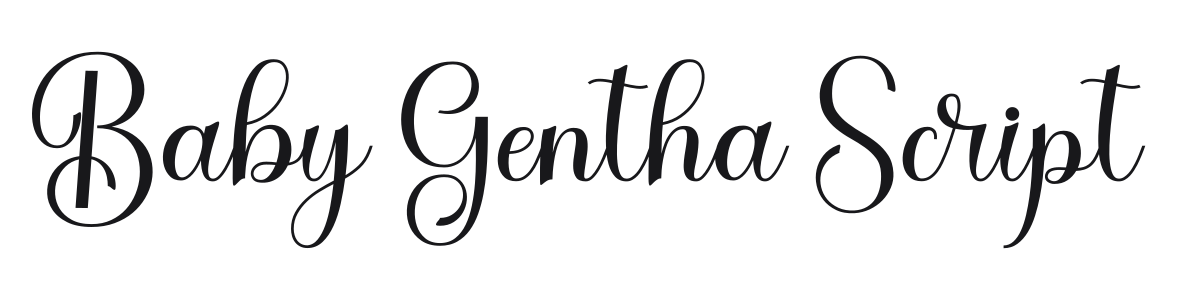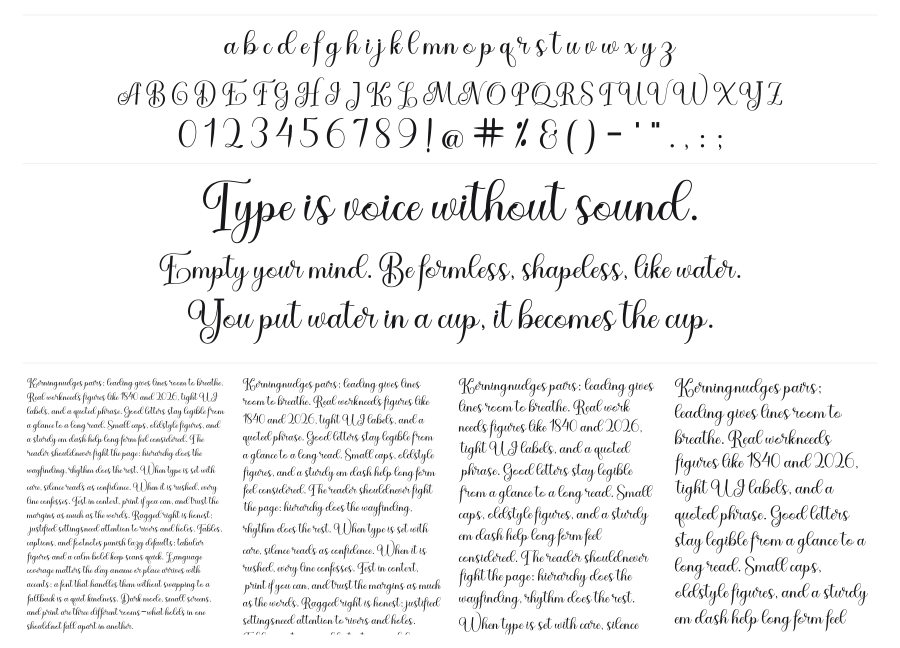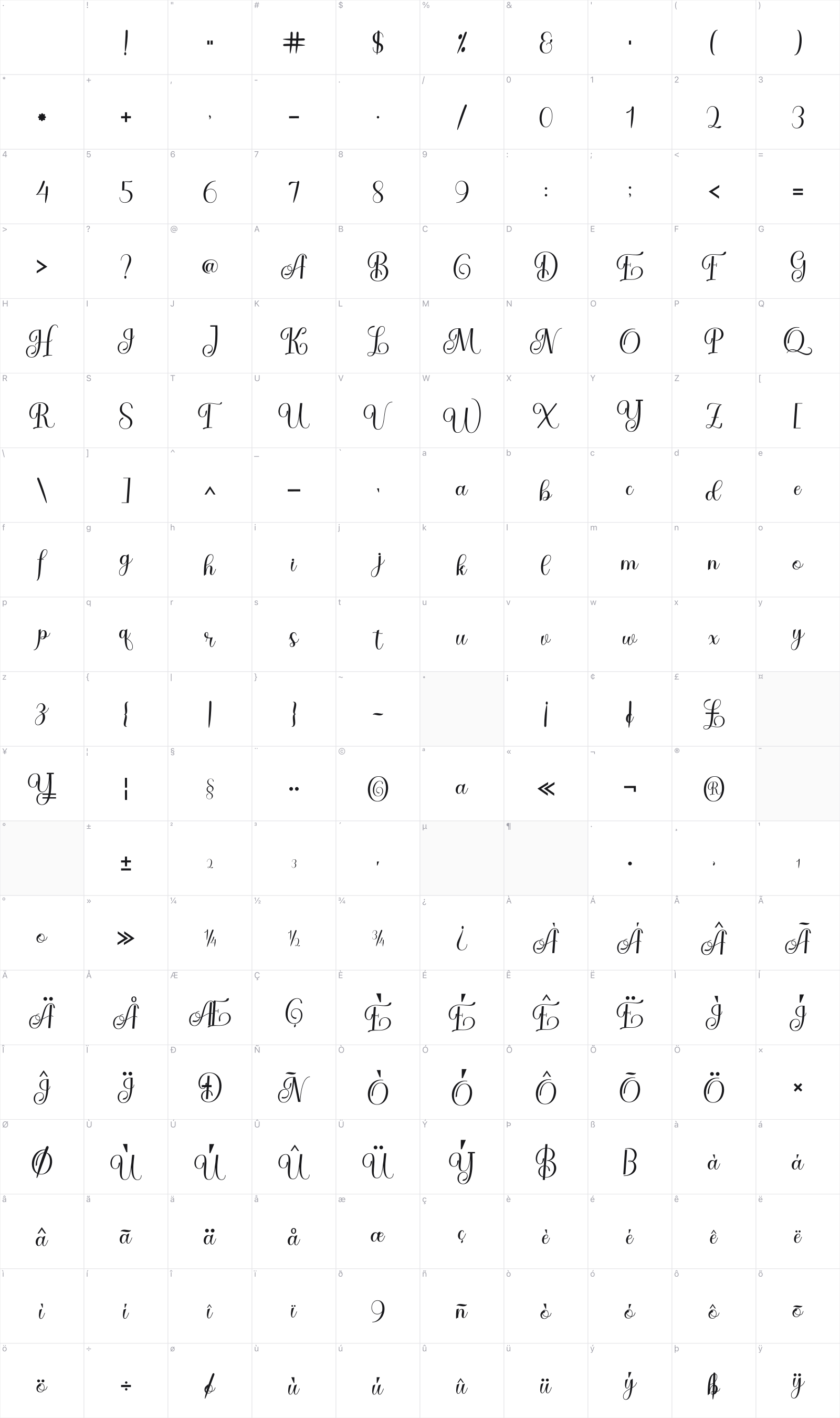
Baby Gentha Script
Baby Gentha Script is a lively casual script with sweeping loops, generous swashes, and a bouncy baseline rhythm. The contrast between thick downstrokes and delicate hairline connectors gives it a handcrafted calligraphic energy. It sits naturally on wedding invitations, product packaging, and social media graphics.